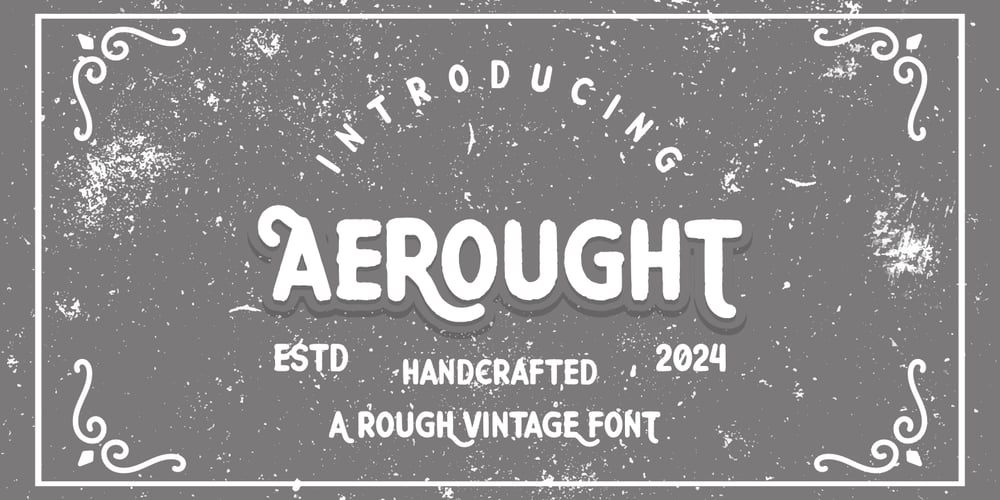
Aerought Font Family was designed by Bayu Aji Fais Mursid and published by Bayuktx. Aerought contains 1 styles and family package options. Hello,Thank you for visiting my products, we will give you the best choice.Aerought a Rough Vintage Font, This font is made with a high premium quality level which you can use as flyers, quotes, posters, banners, packaging, merchandise, logotypes and much more.FEATURES :* Uppercase* Lowercase* Number* Punctuation* Multilingual* PUA Encode* OpentypeFILES INCLUDED :* AeroughtThank you